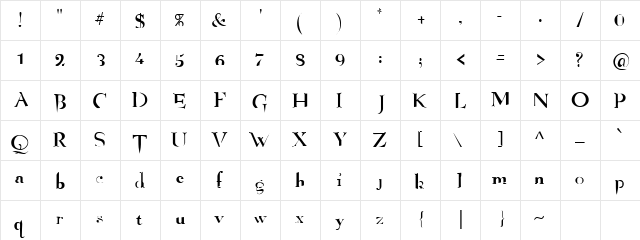
Angelized Normal
Design Context for Angelized Typeface
Angelized is a composed and adaptable typeface that performs quietly and consistently across a wide range of design contexts.